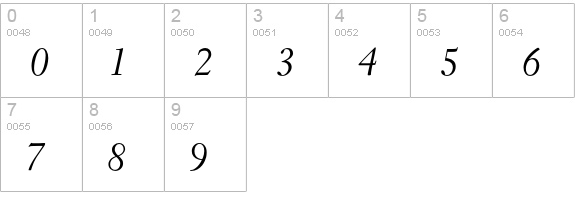
EldoradoDisplay-Italic Font Details
EldoradoDisplay-Italic is a distinctive, italic variant in the EldoradoDisplay typeface family \xE2\x80\x94 well suited to design and typography projects.
EldoradoDisplay-Italic is a beautifully designed font that exudes elegance and sophistication. Its italic style adds a touch of flair to any text, making it perfect for luxury branding, editorial design, and more. The flowing curves and unique letterforms of EldoradoDisplay-Italic make it a standout choice for those seeking a refined and stylish look for their projects. Best of all, EldoradoDisplay-Italic is available for free download at FontsMarket.com. This means you can easily access this stunning font and enhance your designs without having to worry about any costs. Don't miss out on the opportunity to elevate your projects with the timeless beauty of EldoradoDisplay-Italic - get your free download today!